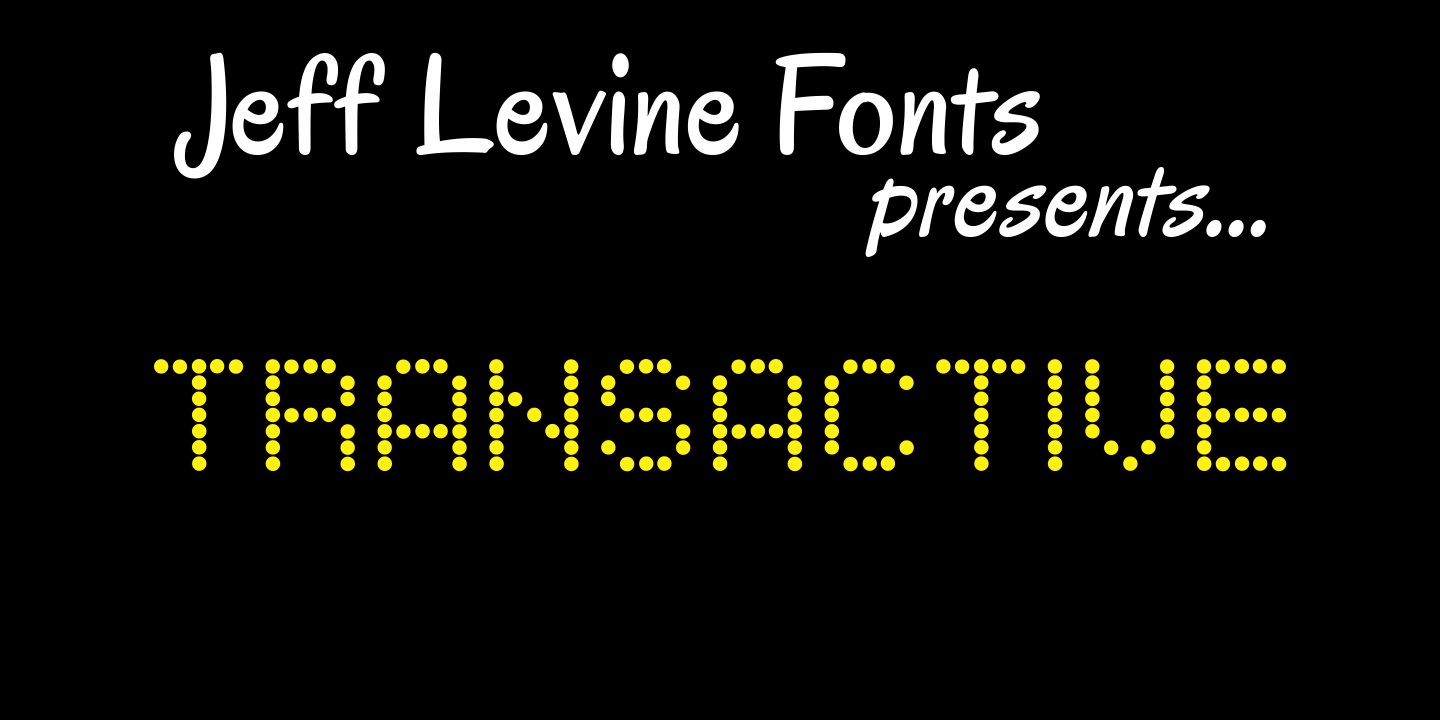
Transactive
Transactive JNL is a simple dot matrix font design from Jeff Levine.
Transactive includes 201 glyphs.
Transactive JNL Regular by Jeff Levine Fonts